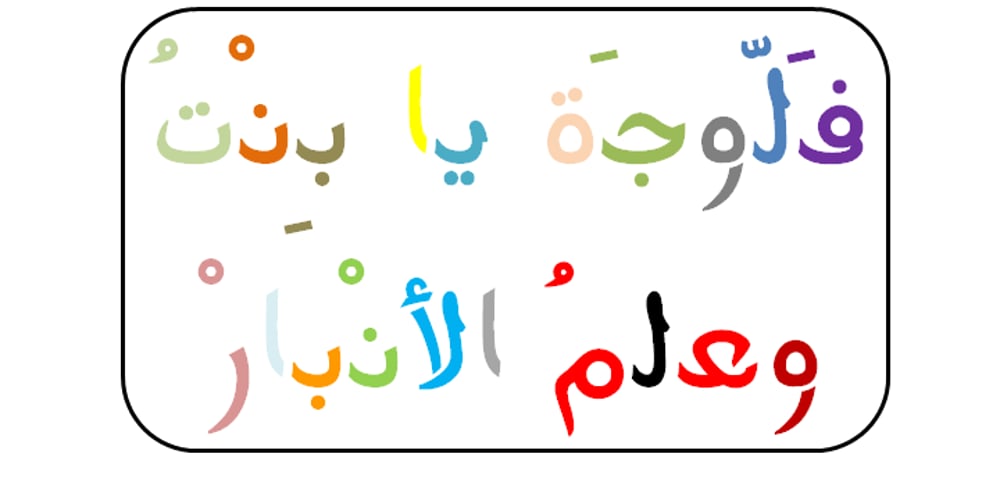
Fallujah
Fallujah font
Fallujah Font Family was designed by published by Arabetics. Fallujah contains 6 styles and family package options. A typeface design with extra isolated scattered letters and random careless look. It has six members, normal, bold, and medium, all of which come in two styles, regular and left-slanted italic styles. This font family design follows the guidelines of Mutamathil Taqlidi type style with one glyph for every basic Arabic Unicode character or letter, as defined by the Unicode Standards, and one additional final form glyph, for the freely-connecting letters in traditional Arabic cursive text. Fallujah employs variable x-height values. It includes only the Lam-Alif ligatures. Soft-vowel diacritic marks, harakat, are selectively positioned. Most of them appear by default on the same level, following a letter, to ensure that they would not interfere visually with letters. Tatweel is a zero-width glyph. Keying the tatweel key before Alif-Lam-Lam-Ha will display the Allah ligature. Fallujah includes both Arabic and Arabic-Indic numerals, in addition to standard punctuations.